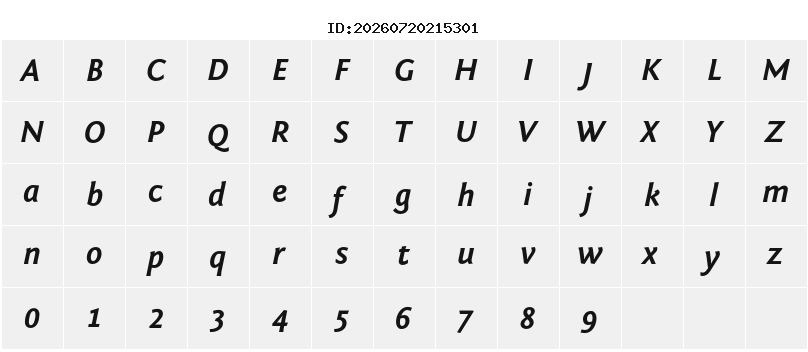
Fontin Sans CR Preview
• Font Name: Fontin Sans CR
• Manufacturer: Jos Buivenga
About Fontin Sans CR.ttf
Fontin Sans CR.ttf is a modern, elegant sans-serif font designed for ultimate readability and visual harmony. Perfect for branding, headlines, web design, and print materials.